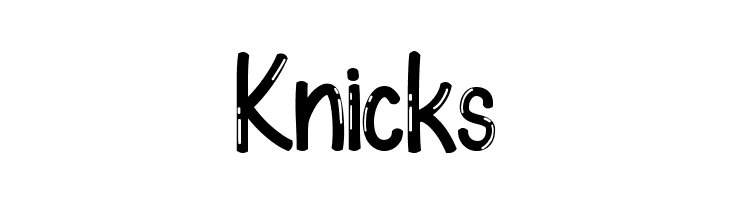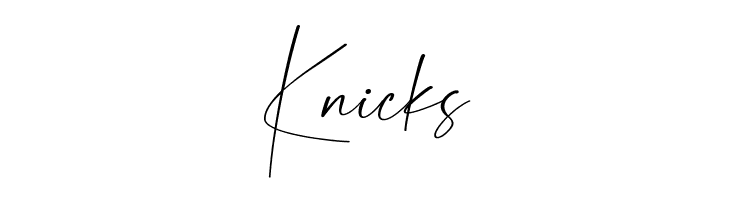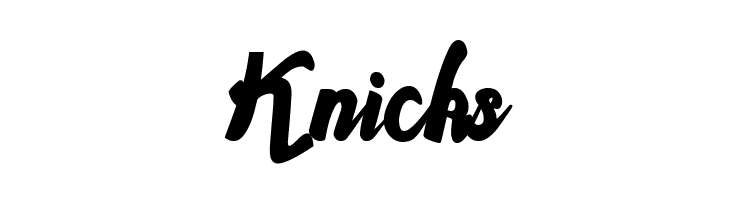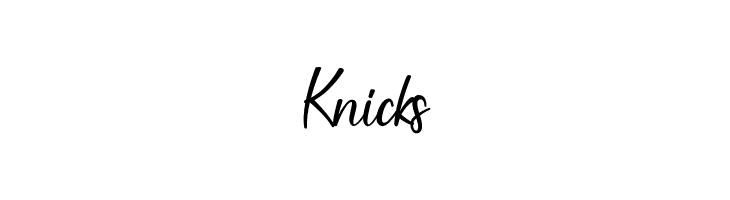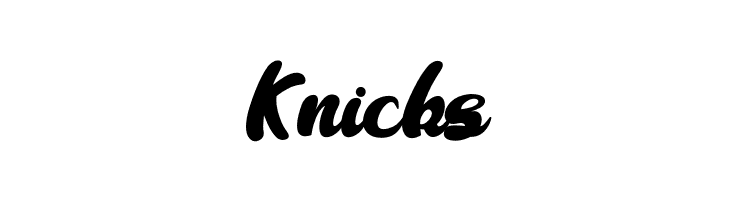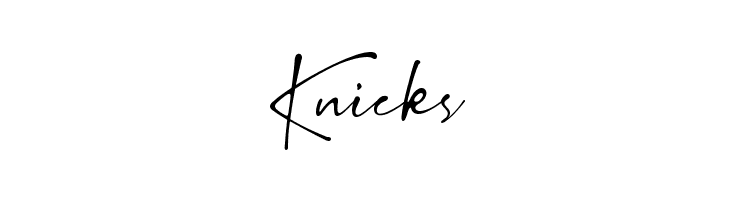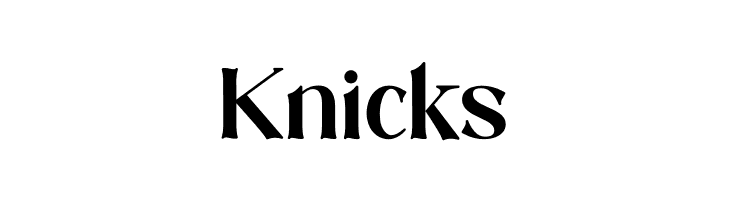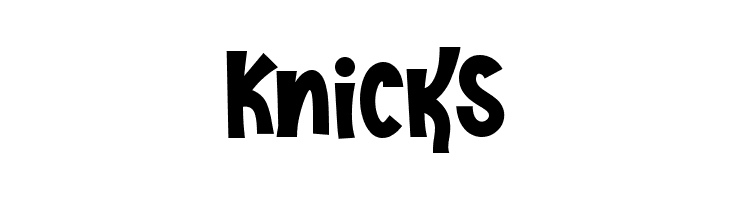
• Afiany Free Normal
A delicate and flowing script font with elegant, cursive letterforms.
• Aficionado DEMO Regular
A bold, decorative font with playful, exaggerated characters and unique leaf-like elements.
• Afika FREE
A bold, playful handwritten font with a lively and energetic style.
• AfikaFREE
A playful, bold handwritten font with smooth, rounded edges.
• AfikaThuan
An elegant, flowing script font with high contrast and natural handwriting style.
• Afilia
A playful and whimsical script font with a handwritten style.
• Afilia
A playful, elegant script font with a handwritten touch.
• Afire Love Personal Use
A bold, flowing script font with elegant curves and a handwritten style.
• Afisha
A bold, angular font with a modern, condensed design.
• AfishaCap
A bold, angular font with a modern, geometric style.
• Afissta
A graceful and elegant script font with flowing, interconnected letters.
• AFL Font pespaye nonmetric
• AFLD Regular
A geometric, modern font with clean lines and rounded edges.
• Aflutter DEMO Regular
• afnolyca
A graceful, flowing script font with elegant curves and loops.
• AFonteParanormal Regular
An abstract, decorative font with a mystical, ancient script feel.
• AfontLIGHTPERSONALUSE
A modern, geometric sans-serif font with rounded edges and uniform width.
• Afontros
An elegant, flowing script font with a natural handwriting style.
• Africa
A modern sans-serif font with clean lines and excellent readability.
• Africa Regular
A bold, geometric font with a layered outline effect, perfect for impactful headlines.
• Africaans
Abstract illustrations resembling tribal art, not a valid font.
• AfricaArt